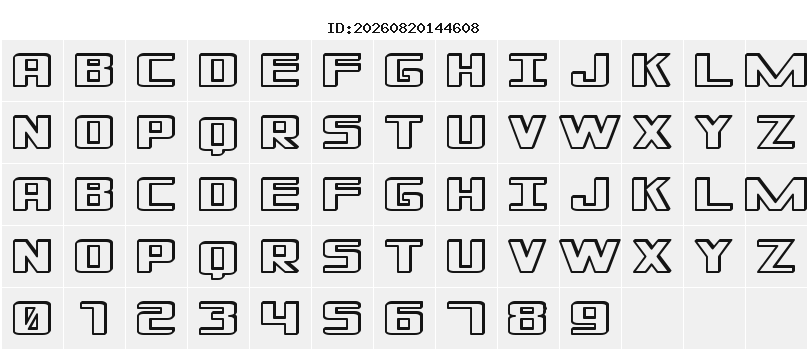
Shadded of South Preview
• Font Name: Shadded of South
• Font ID: Shadded of South:Version 1.00
• Full Font Name: Shadded of South
• PostScript Name: ShaddedofSouth
• Designer: This font is an original work of southype dot com
About Shadded of South.ttf
Shadded of South.ttf is a modern, elegant sans-serif font designed for ultimate readability and visual harmony. Perfect for branding, headlines, web design, and print materials.